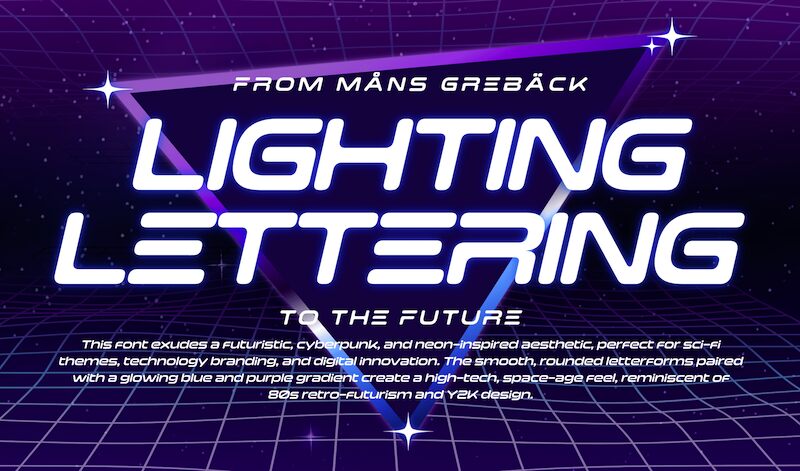
Lighting Lettering font by Mans Greback is a wired expanded display typeface archived for your futuristic typographic designs. The font’s general design is made up of alphabets whose strokes are stylishly thin, aligned in an italic style, and smoothly rounded at square ends. Shapes are constructed of a single line as the name hints, and they feel modern and contemporary.
Reimagine logos for tech companies and innovative apps with this free font or use it in movie titles of action/sci-fi films or video games. It’s a perfect fit for advertising sports items such as shoes and footballs, branding car companies, and designing racing-related content such as magazines.